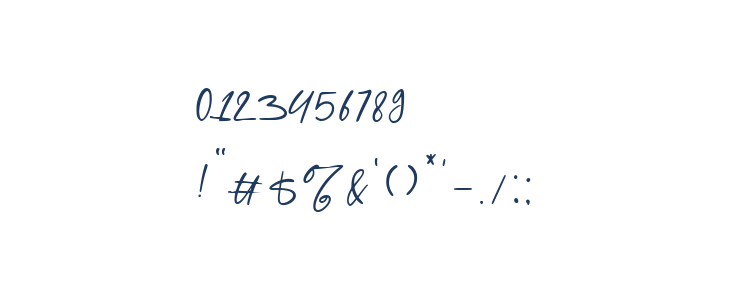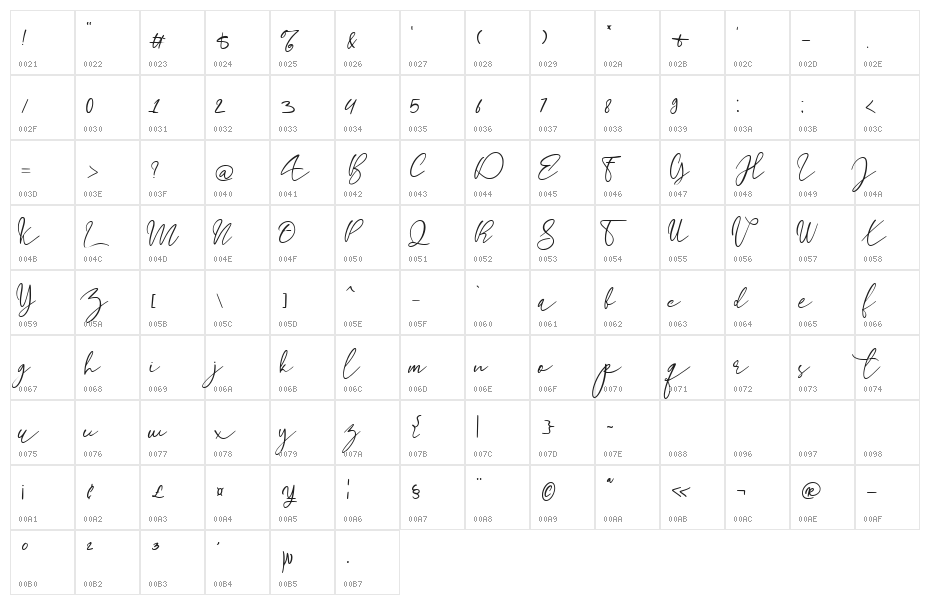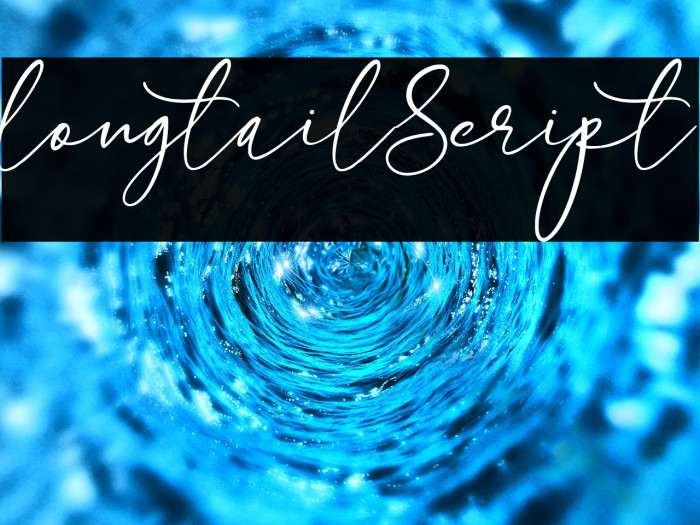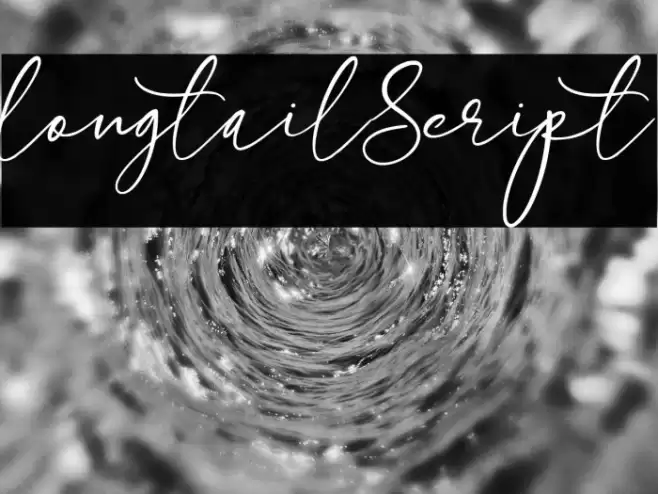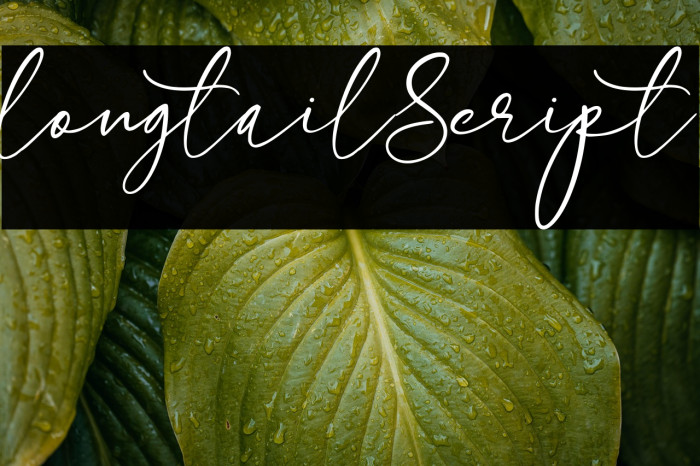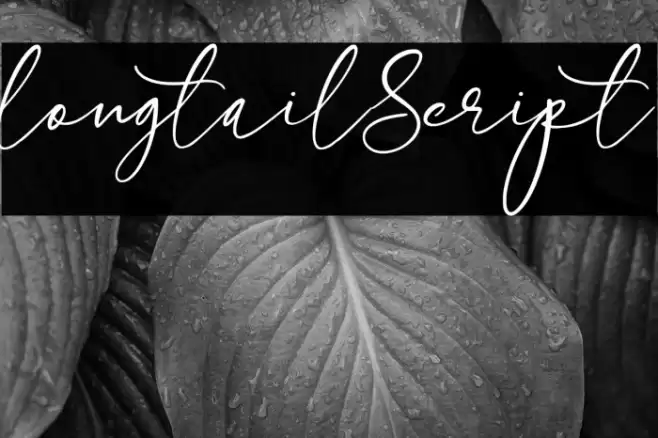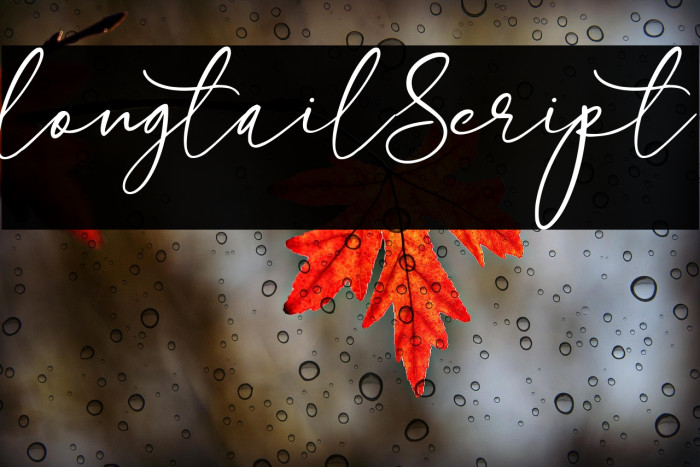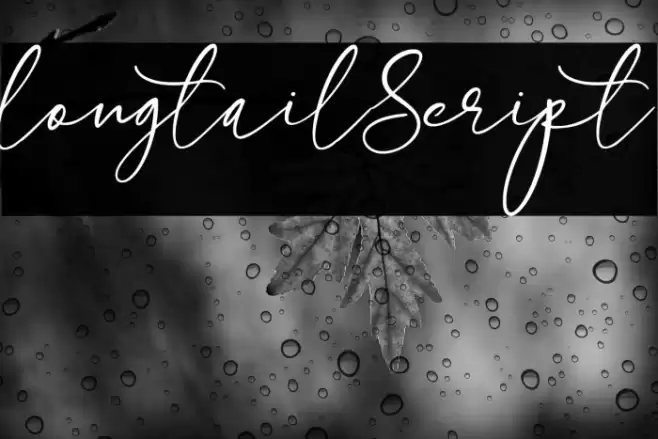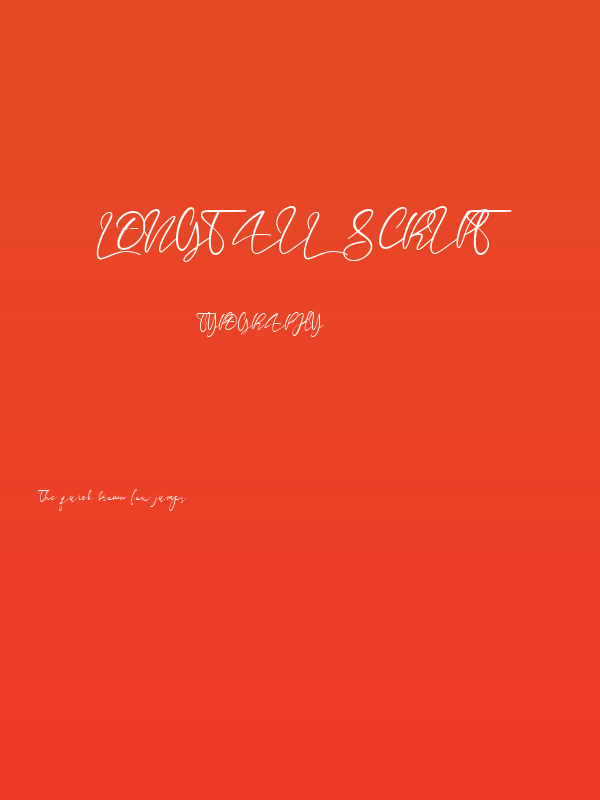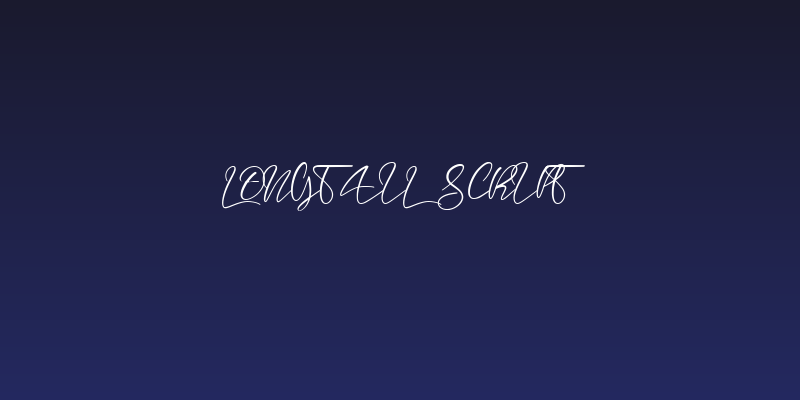
longtail Script Font
longtail Script Description
This font exudes a lively and elegant script style, characterized by its flowing, interconnected letterforms that mimic natural handwriting. The uppercase letters are bold and dynamic, with sweeping curves and loops that add a sense of movement and grace. The lowercase letters maintain a consistent rhythm, with elongated ascenders and descenders that enhance the font's fluidity. Numbers and special characters are crafted with the same attention to detail, ensuring a cohesive look across all elements. The font's overall appearance is both sophisticated and approachable, making it suitable for a variety of creative applications.
Overall StyleElegant, Handwritten
Use CaseLogos, Invitations, Decorative text
Proposed ProjectsIdeal for wedding invitations, greeting cards, branding, and logo design.